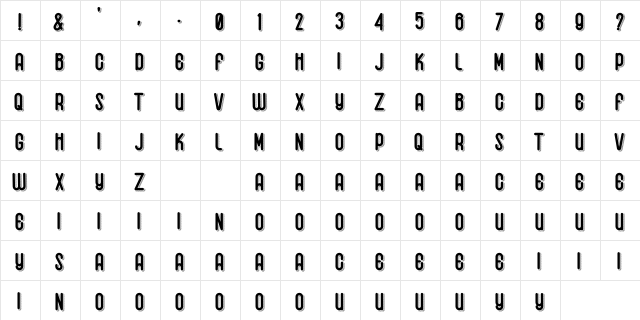
Dhagienol Sans Regular
Design Context for Dhagienol Sans Typeface
Dhagienol Sans is a composed and adaptable typeface that performs quietly and consistently across a wide range of design contexts.